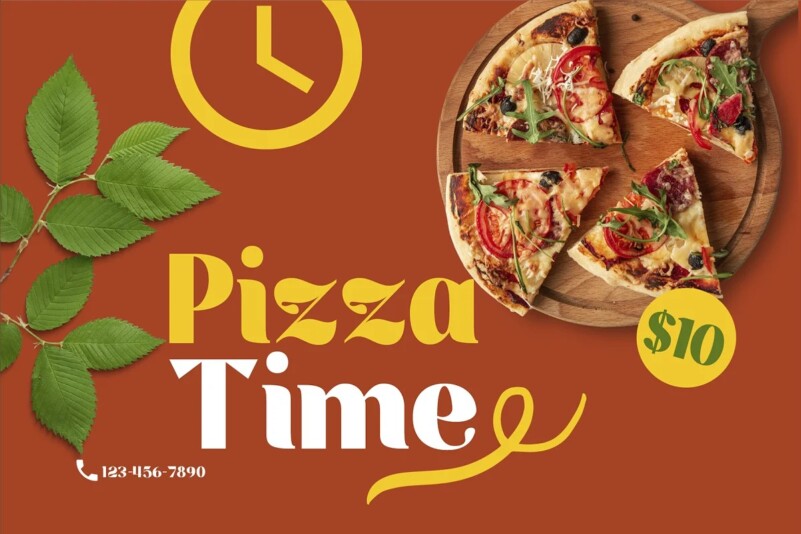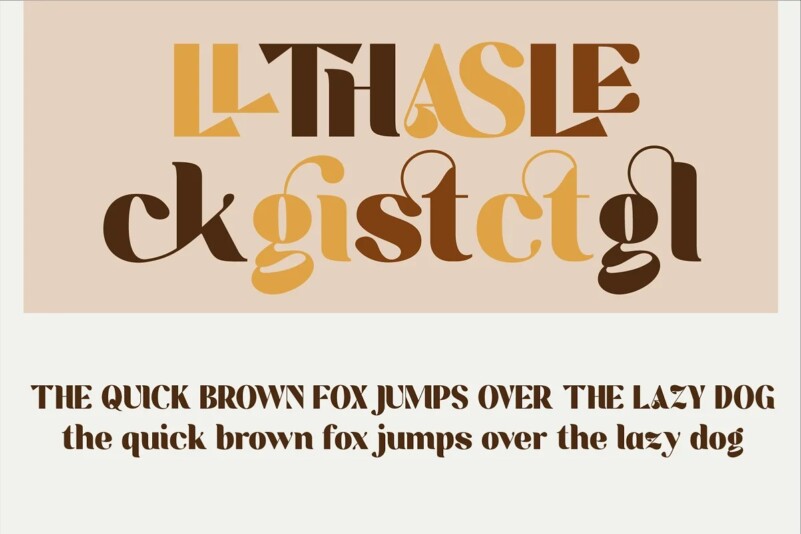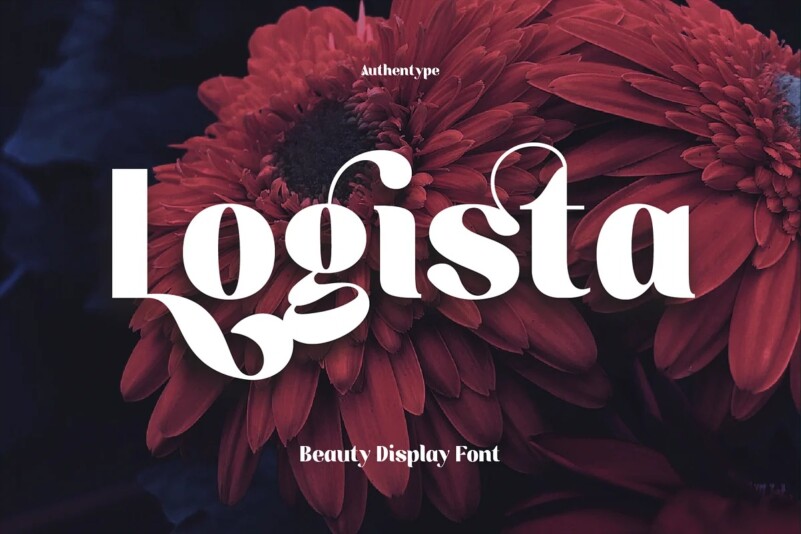
Logista font
Logista – Beauty Display Font is a display font with a full set of uppercase and lowercase letters, multilingual symbols, numbers, punctuation, and ligatures. Logista beautiful display font style for poster, magazine, beauty brand design with swash glyph suitable for your beautiful elegant design concept.